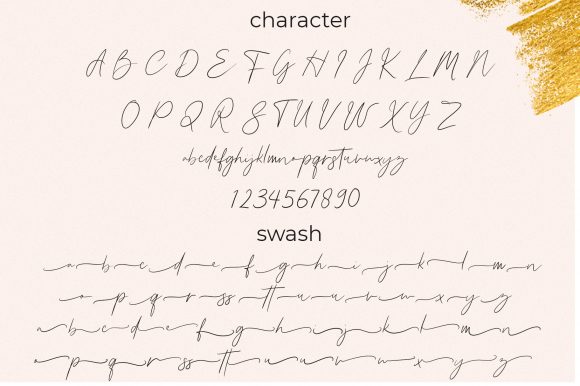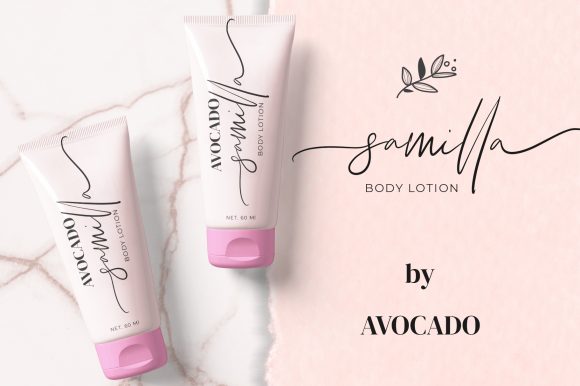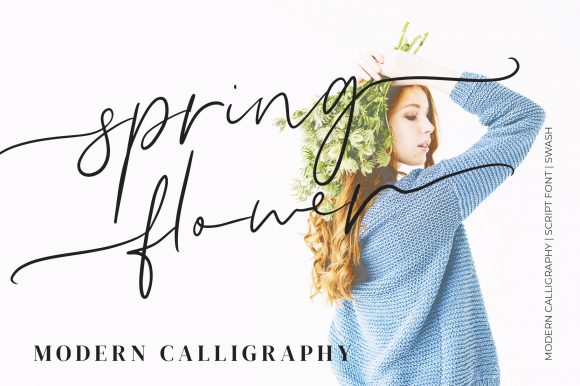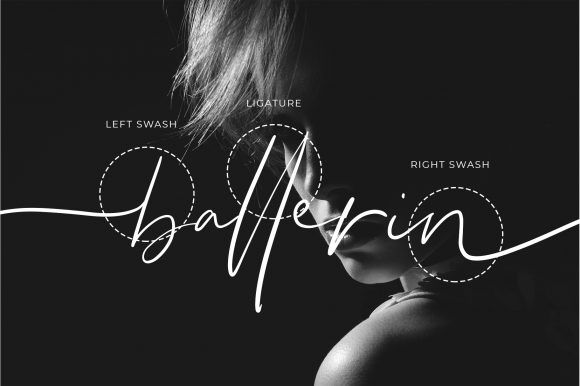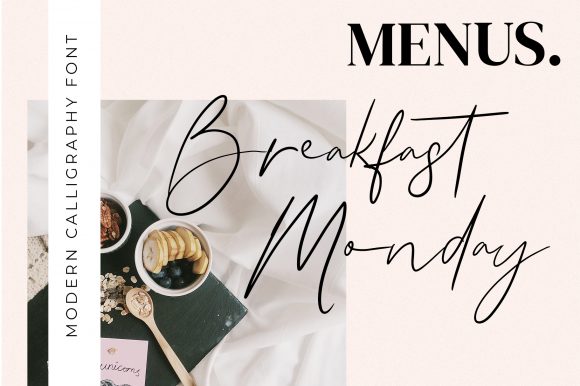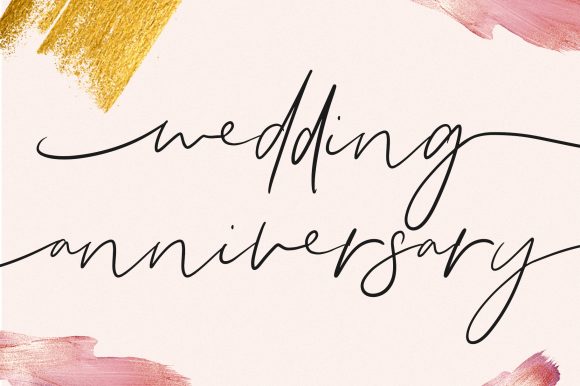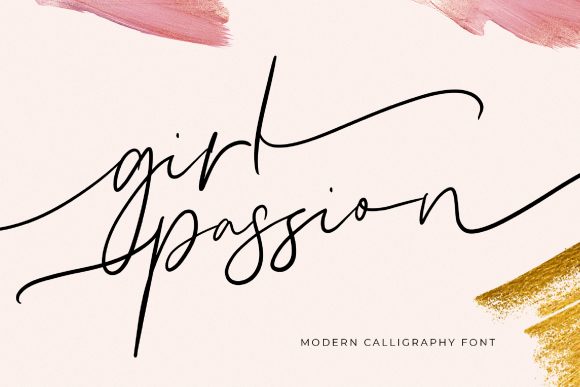
Introducing Girl Passion Font: Elevate Your Designs with Elegance
Are you a designer or crafter looking for a font that can add a touch of luxury to your projects? Look no further than the Girl Passion Font. This beautiful light handwritten font is designed to make a stunning impact on any design project you wish to create. With its unique feel and elegant style, Girl Passion Font is the perfect choice for those who want to add a spark of sophistication to their work.
What Makes Girl Passion Font Special?
Girl Passion Font is a one-of-a-kind font that boasts a distinctive and stylish appearance. Its light handwritten style gives it a personal and intimate feel, making it perfect for designs that require a touch of warmth and elegance. The font’s unique feel is characterized by its flowing lines, subtle curves, and delicate strokes, which come together to create a truly stunning visual effect.
Key Features of Girl Passion Font
• Light Handwritten Style: Girl Passion Font features a beautiful light handwritten style that is both elegant and refined.
• Unique Feel: The font’s unique feel is characterized by its flowing lines, subtle curves, and delicate strokes.
• Luxury Spark: Girl Passion Font is designed to add a luxury spark to any design project, making it perfect for high-end designs.
• Versatile: The font is versatile and can be used for a wide range of design projects, from branding and advertising to packaging and digital media.
Girl Passion Font is easy to use and can be incorporated into your designs in a variety of ways. Here are a few ideas to get you started:
• Branding and Logo Design: Use Girl Passion Font to create a stunning logo or brand identity that exudes elegance and sophistication.
• Advertising and Marketing: Add a touch of luxury to your advertising and marketing materials with Girl Passion Font.
• Packaging Design: Use the font to create beautiful and eye-catching packaging designs that stand out on store shelves.
• Digital Media: Incorporate Girl Passion Font into your digital media projects, such as social media graphics, blog posts, and website designs.
There are many fonts available for designers and crafters, but Girl Passion Font stands out from the rest. Here are a few reasons why:
• Unique Style: Girl Passion Font has a unique style that is both elegant and refined.
• High-Quality Design: The font is designed to high standards, ensuring that it looks great in any design project.
• Easy to Use: Girl Passion Font is easy to use and can be incorporated into your designs quickly and easily.
Girl Passion Font is a beautiful light handwritten font that is perfect for designers and crafters looking to add a touch of luxury to their projects. With its unique feel and elegant style, this font is sure to make a stunning impact on any design project. Whether you’re working on a branding project, advertising campaign, or packaging design, Girl Passion Font is the perfect choice. So why wait? Download Girl Passion Font today and start creating stunning designs that exude elegance and sophistication.